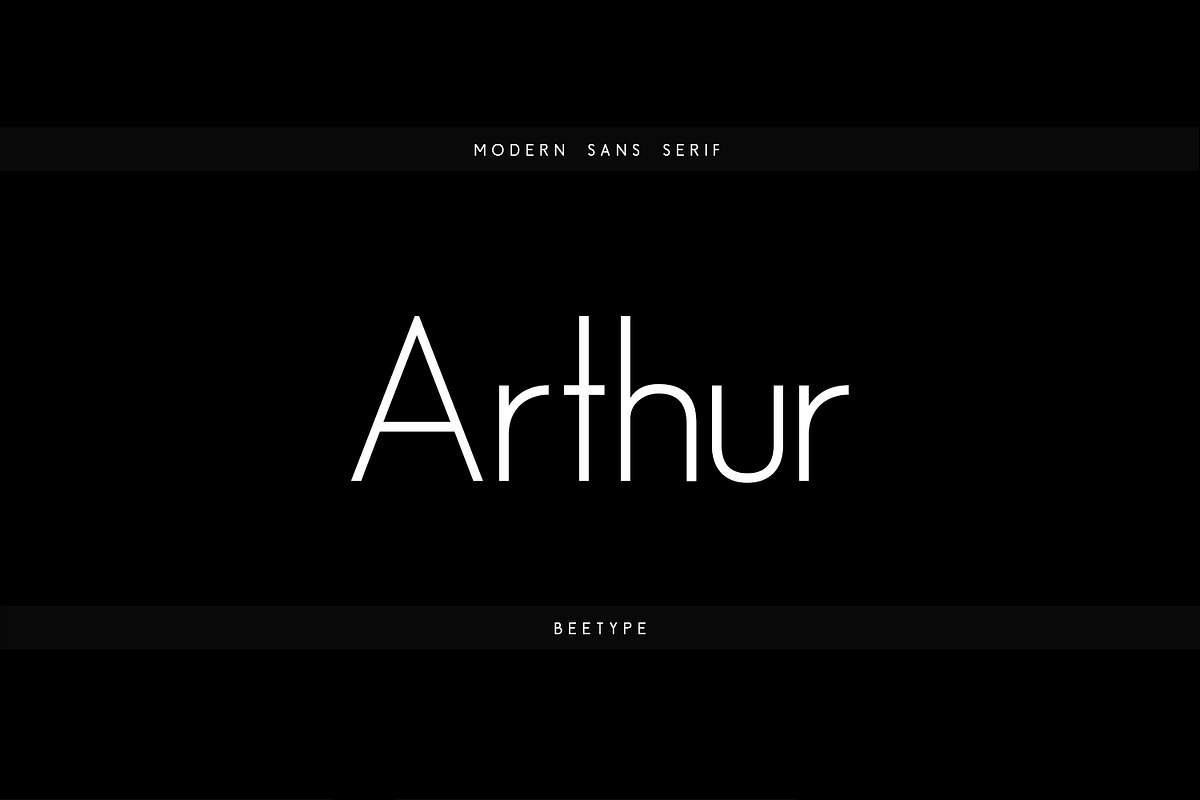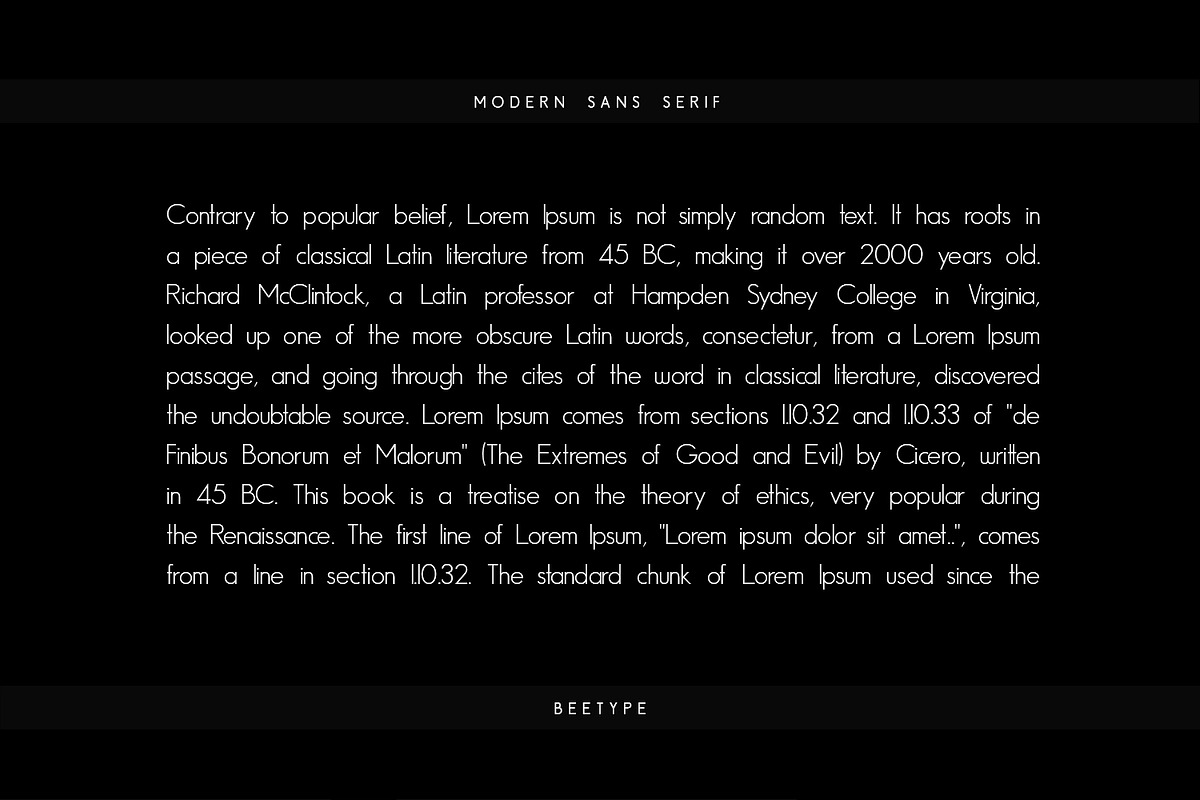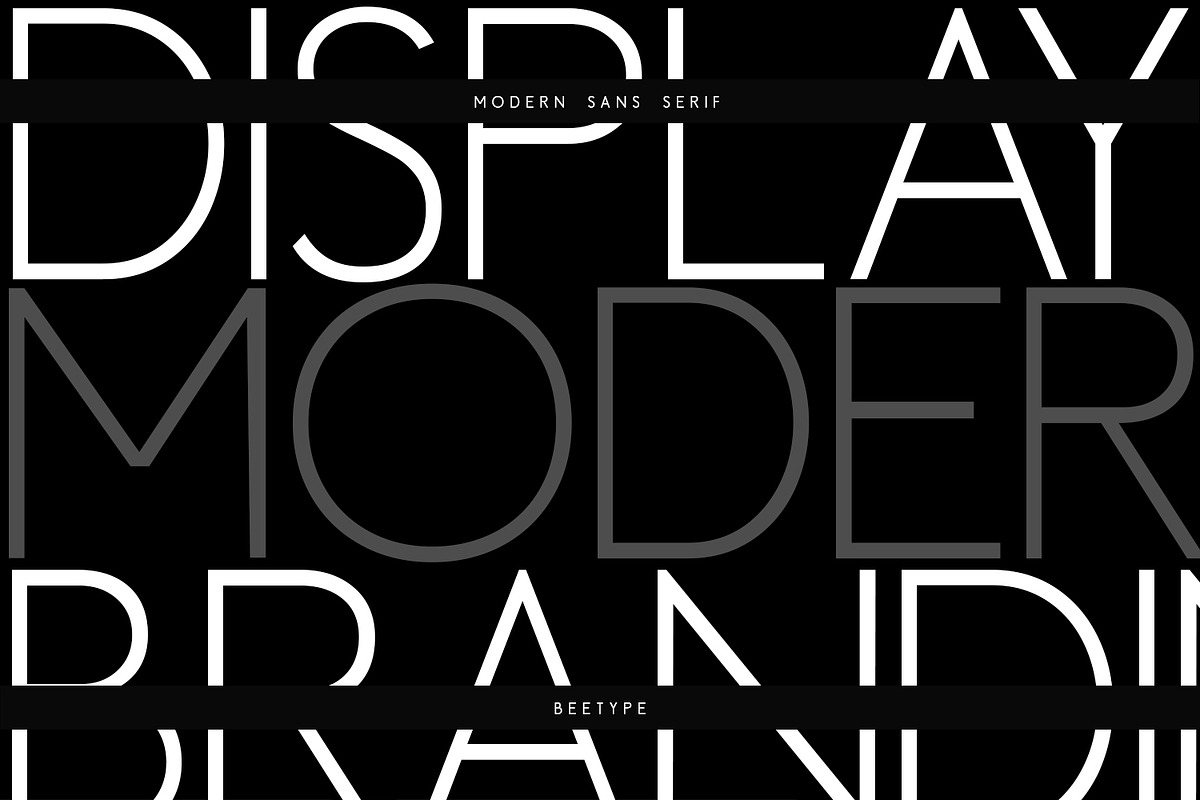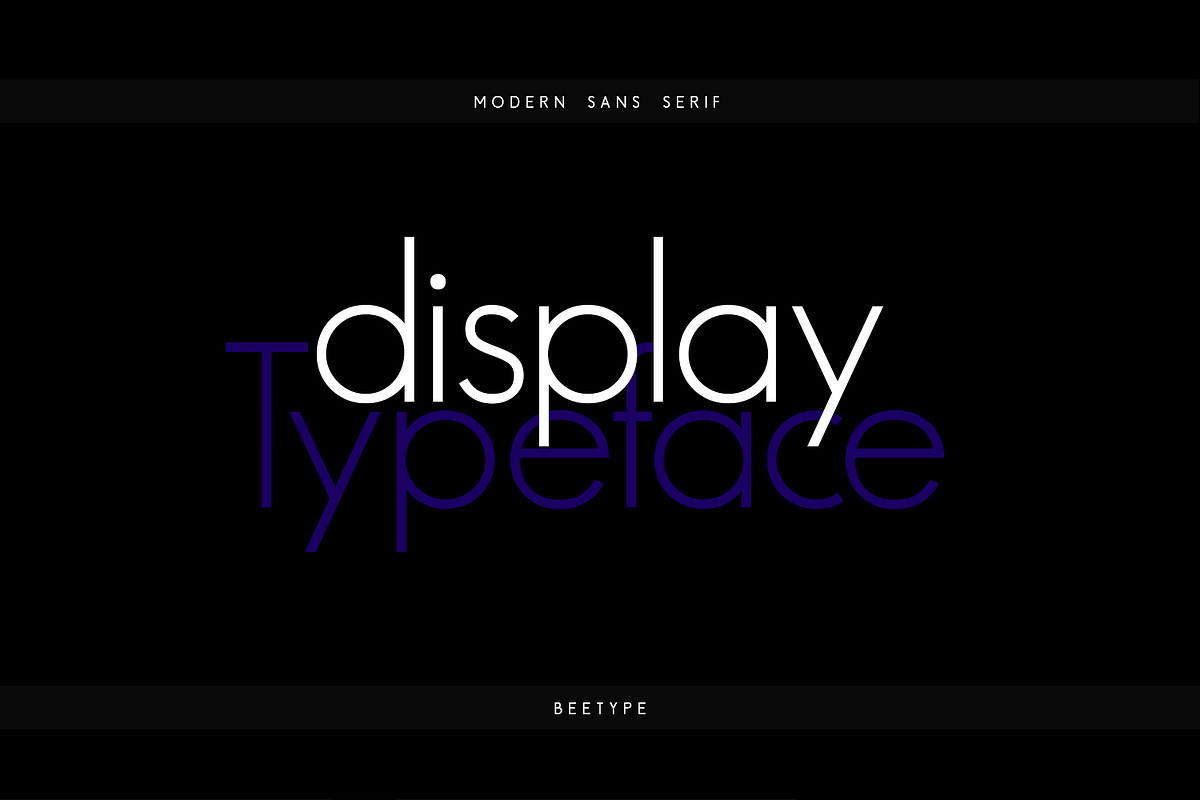
Arthur Elegant Sans
Arthur is a unique and modern display typeface perfect for headlines, big text, branding, logotypes & display usage. It’s the perfect choice for creating remarkable logos, promotional content, and marketing graphics that can bring uniqueness and freshness at its level best.
The typeface will be perfect for creating unique monograms, logos, and identities with these combinations.